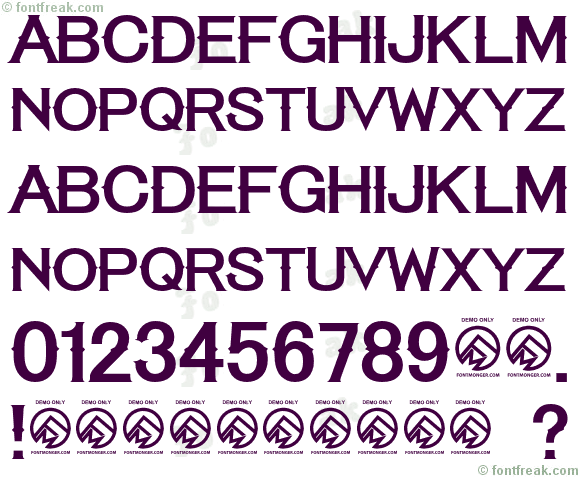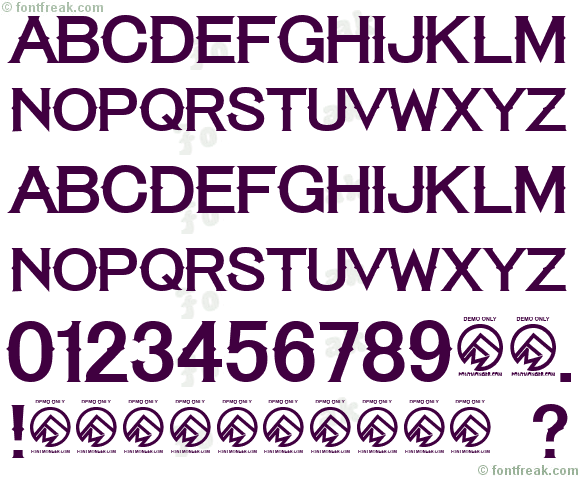
Tequila Sunrise Regular
About Tequila Sunrise Regular
Tequila Sunrise Regular, designed by Chris Vile, is a striking display font characterized by its bold and energetic style. This font falls under the decorative category, making it an excellent choice for designs that require a vibrant and lively touch. The typeface features a medium stroke weight with minimal contrast, ensuring readability while maintaining a playful aesthetic. Its slightly condensed spacing adds a modern flair, making it suitable for both headlines and short text applications.
The font incorporates unique decorative elements that evoke a sense of fun and celebration, reminiscent of a lively sunset gathering. This makes it particularly well-suited for use cases such as cocktail menus, vibrant event flyers, and attention-grabbing promotional materials for bars or restaurants. Additionally, Tequila Sunrise Regular can enhance wedding invitations, especially those with a festive theme, and movie posters that aim to convey a sense of adventure and excitement.
Target audiences for this font include graphic designers looking to infuse their projects with personality, small business owners wanting to attract customers with eye-catching signage, and content creators who need a unique typographic element for their digital media. The font's lively characteristics make it versatile across various platforms, from print to digital.
What sets Tequila Sunrise Regular apart is its ability to evoke a sense of warmth and celebration, making it a perfect choice for designs that aim to capture the spirit of enjoyment and leisure. With its engaging style and free availability, this font is an excellent addition to any designer's toolkit. For those interested, the Tequila Sunrise Regular font free download is an opportunity to bring a fresh aesthetic to your projects.
Author Chris Vile